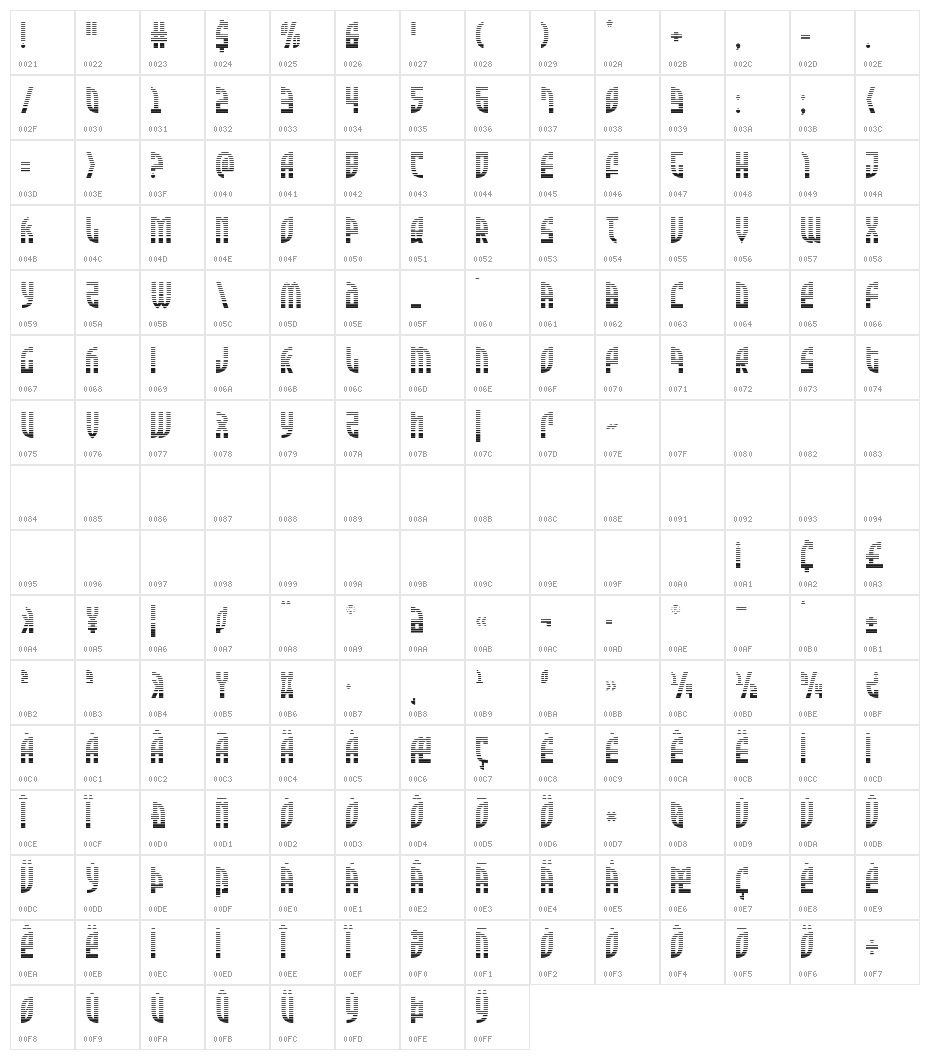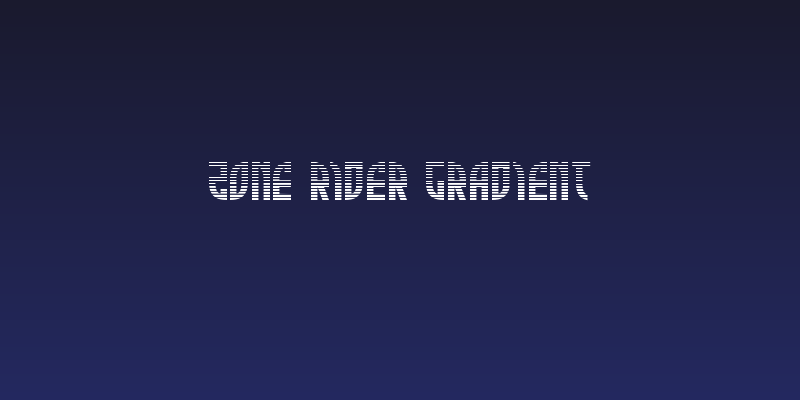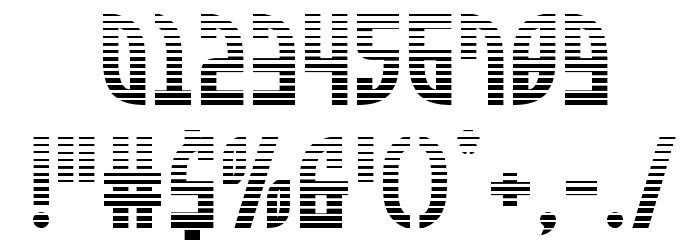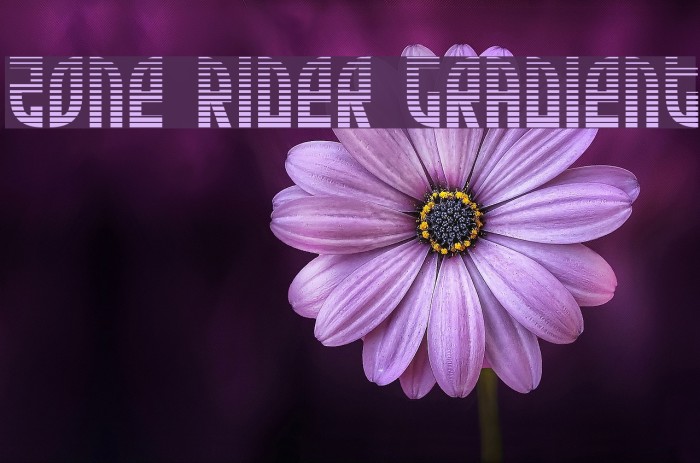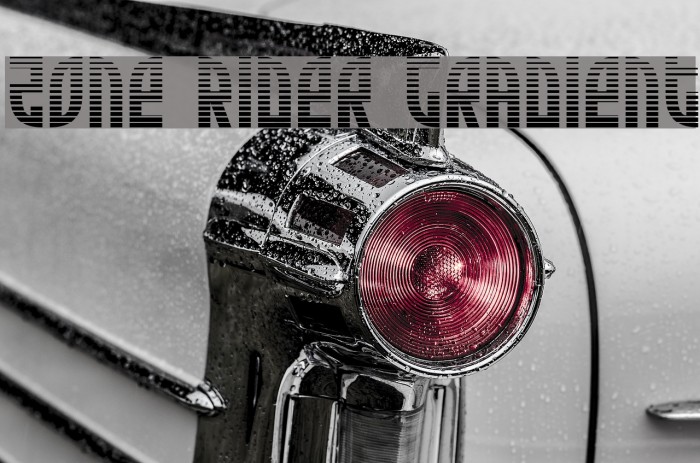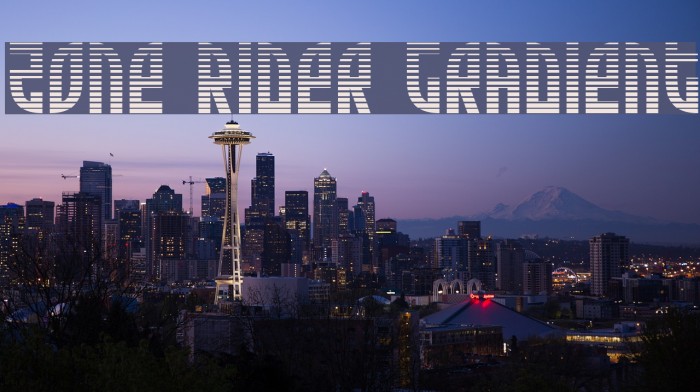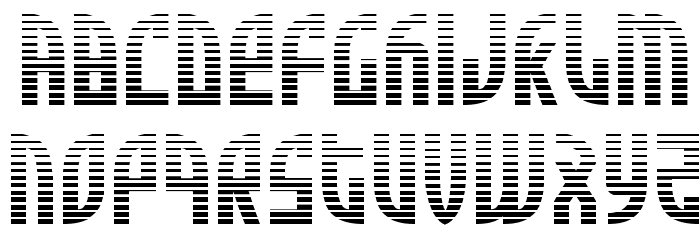
Zone Rider Gradient Font
Zone Rider Gradient Description
This font features a unique, futuristic design characterized by horizontal lines that create a gradient effect within each character. The uppercase and lowercase letters share a consistent style, emphasizing a bold and dynamic appearance. The numbers and special characters maintain this aesthetic, making the font suitable for eye-catching designs. The geometric shapes and uniform line thickness contribute to a modern and edgy look, ideal for projects that require a standout visual impact.